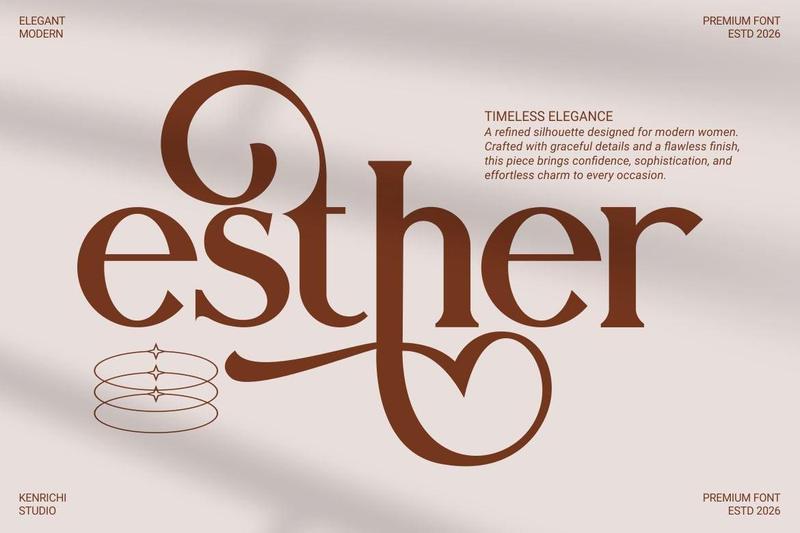
**Proudly present our new product Esther Font**
* Esther Font is a modern and authentic font.
* Perfect for both professional and branding needs of a product.
* This font is suitable for any branding project like quotes, logo, blog header, poster, banding, letter, invitation, stationery,
* etc… Designed as a versatile and flexible that can be used on a range of projects and mediums.
* outstanding in a wide range of contexts.